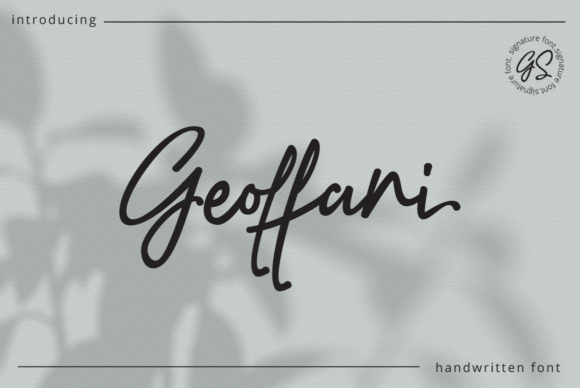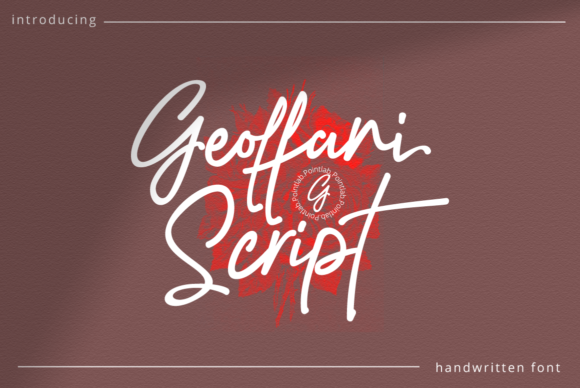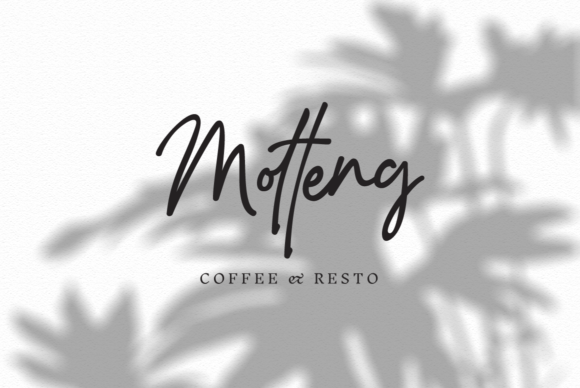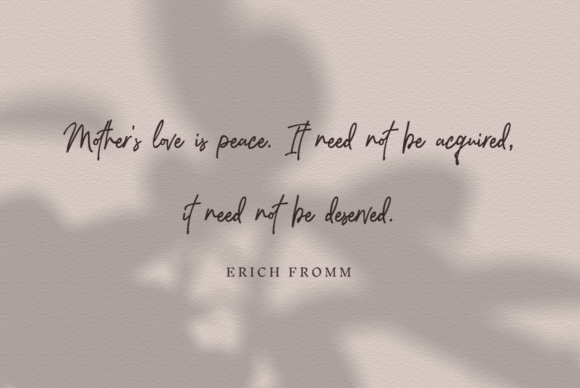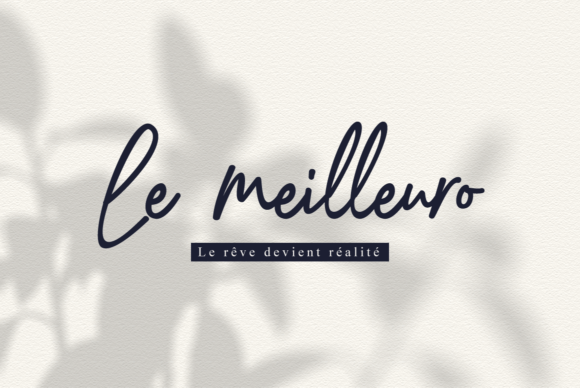
Geoffani Script Font
About Geoffani Script Font
Geoffani Script is a stylish and authentic script font. It looks lovely on a variety of design ideas that require a trendy touch. This font is PUA encoded which means you can access all glyphs and swashes with ease!